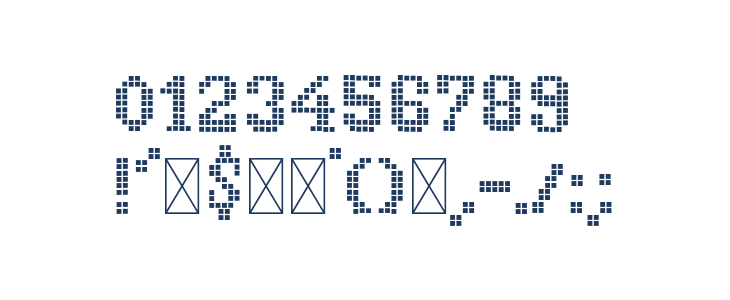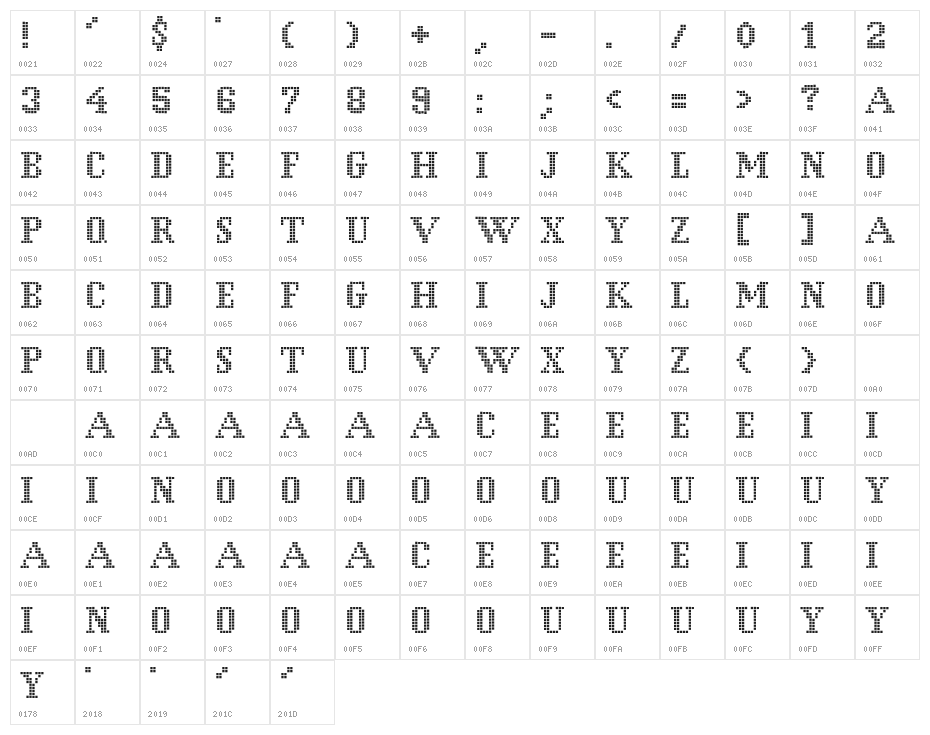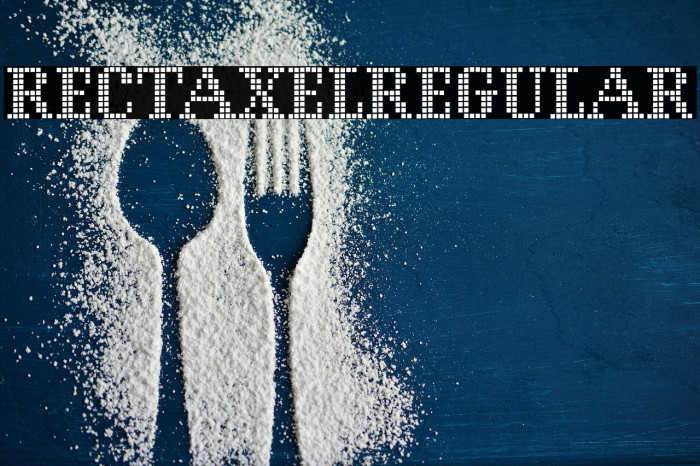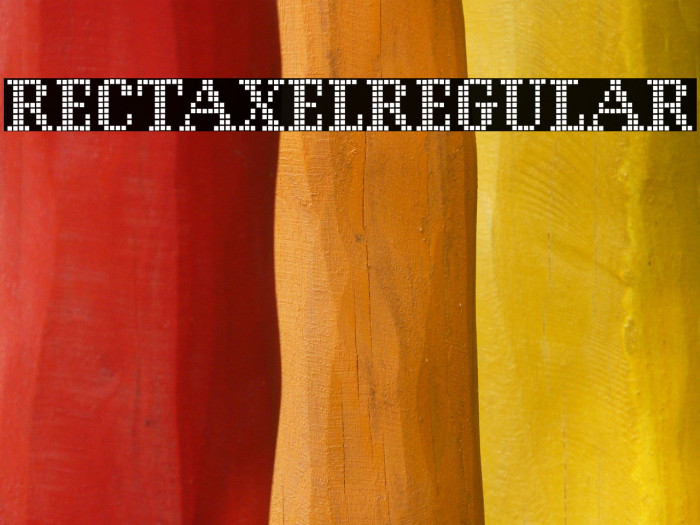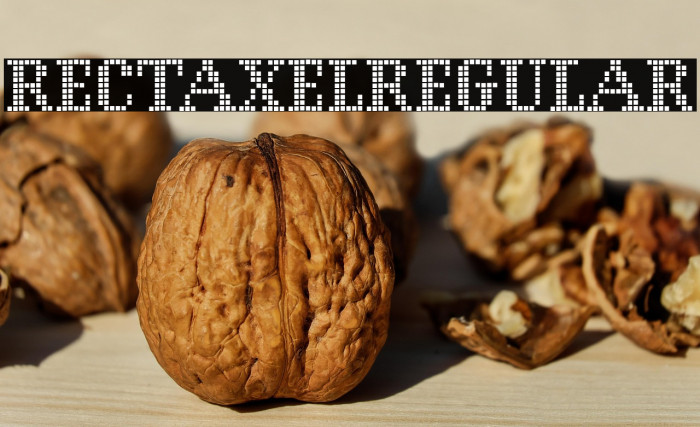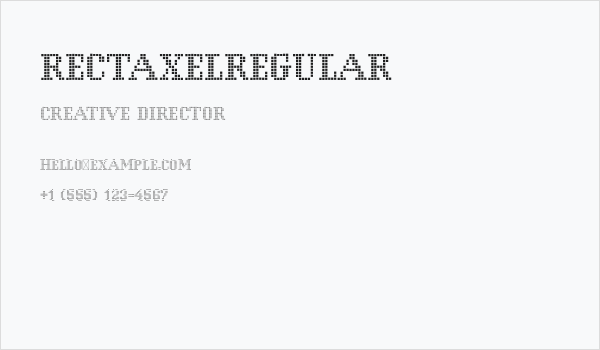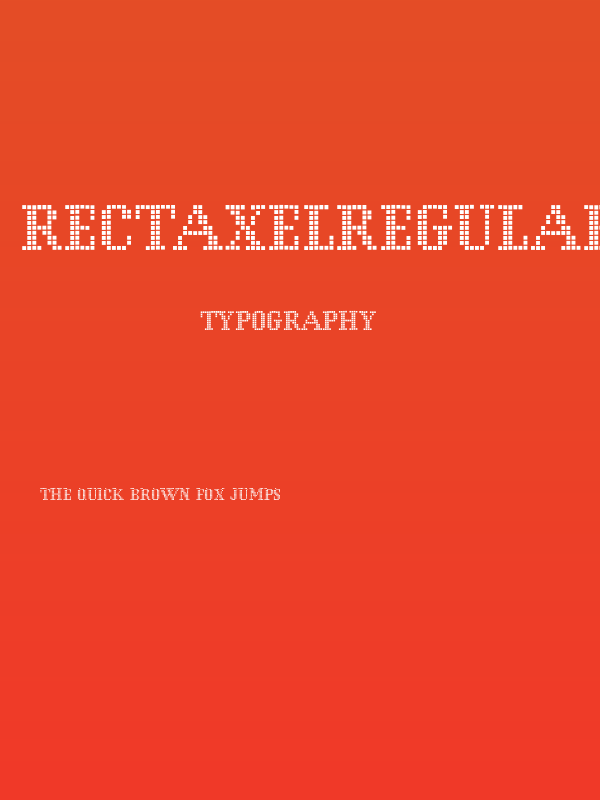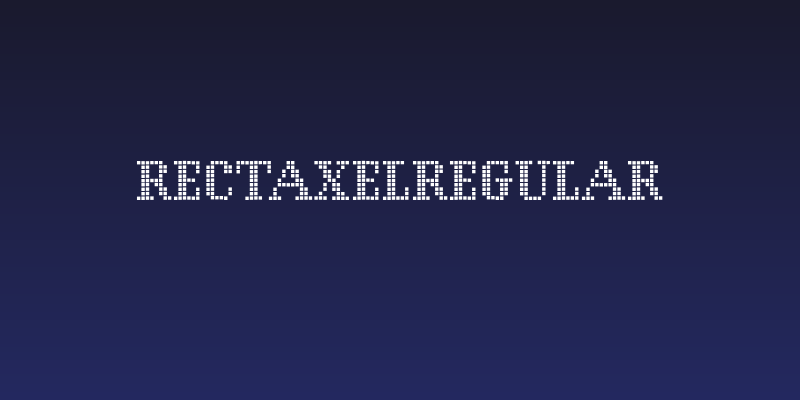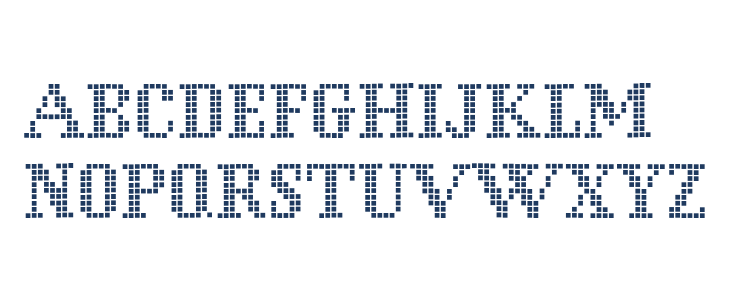
RECTAXELRegular Font
RECTAXELRegular Description
This font features a unique pixelated design, reminiscent of digital displays and retro video games. Each character is constructed from a grid of small squares, creating a distinct and eye-catching appearance. The uppercase and lowercase letters maintain a consistent style, with clear differentiation between each character. Numbers and special characters are also designed in the same pixelated fashion, ensuring uniformity across the entire character set. This font's geometric and structured look makes it ideal for projects that require a modern, digital aesthetic.
Use CaseHeadlines, Logos, Digital displays
Proposed ProjectsIdeal for digital art, retro-themed designs, video game graphics, and tech-related branding.